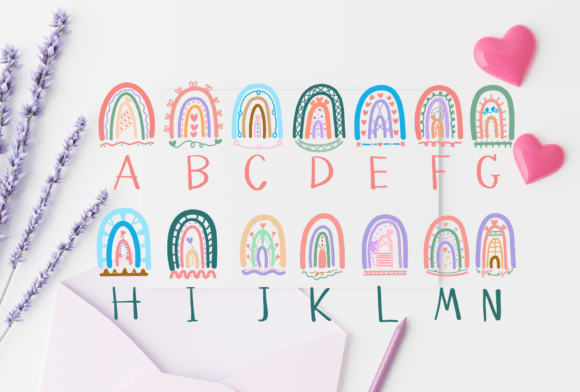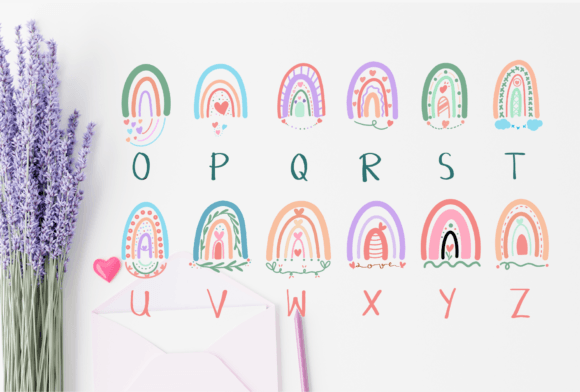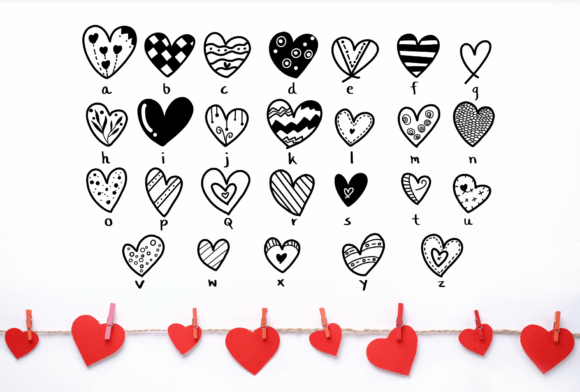
Rainbow Sweet Heart Font: Free Download Now
Introduction to Rainbow Sweet Heart Font
Rainbow Sweet Heart is a super cute dingbats font with a simple style.
It is suitable for teaching, presentations, educational projects, advertising, illustrations, and many other creative ideas .
Rainbow Sweet Heart Font offers exceptional quality and versatility, making it a valuable addition to your design toolkit. Whether you’re creating for personal projects or commercial use, Rainbow Sweet Heart Font delivers professional results.